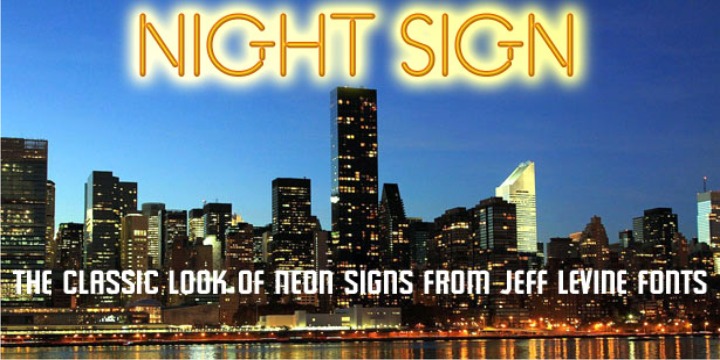
• Night Sign JNL
For decades, the soft glow of a neon sign beckoned weary travelers to roadside rest courts, told the hungry individual where to eat; let enthusiastic revelers know where the night life was happening.
There is something special about a neon sign, yet changing times, city ordinances and even technology itself is turning this staple of urban life for over a hundred years into a museum piece.
Night Sign JNL emulates the craft of hand-formed neon signage and it (along with a few added special effects) can really add some good-old-fashioned pizzazz to a print or web project.